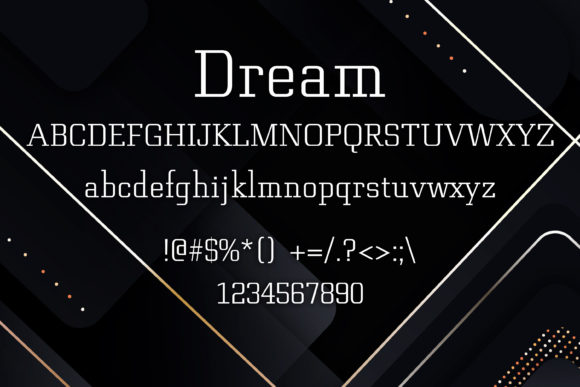
Dream Font: Elevate Your Designs with a Bold and Authentic Display Font
Are you tired of using the same old fonts in your designs? Do you want to add a touch of uniqueness and sophistication to your projects? Look no further than the Dream Font, a bold and authentic display font that’s sure to make your designs stand out. In this article, we’ll explore the features and benefits of the Dream Font, and how you can use it to take your designs to the next level.
What is Dream Font?
Dream Font is a carefully crafted display font that’s designed to make a statement. With its bold and authentic style, this font is perfect for adding a touch of elegance and sophistication to your designs. Whether you’re working on a logo, brochure, or website, the Dream Font is sure to grab attention and leave a lasting impression.
Key Features of Dream Font
- Bold and Authentic Style: The Dream Font features a bold and authentic style that’s perfect for making a statement.
- Neatly Shaped: The font’s neatly shaped letters and curves make it easy to read and visually appealing.
- Contemporary Look: The Dream Font has a contemporary look that’s perfect for modern designs and projects.
- Highly Versatile: This font can be used for a wide range of projects, from logos and brochures to websites and social media graphics.
Benefits of Using Dream Font
So why should you use the Dream Font in your designs? Here are just a few benefits of using this amazing font:
- Adds Visual Interest: The Dream Font adds visual interest to your designs, making them more engaging and attention-grabbing.
- Enhances Brand Identity: With its unique and authentic style, the Dream Font can help enhance your brand identity and make your designs more recognizable.
- Improves Readability: Despite its bold style, the Dream Font is easy to read, making it perfect for use in body text and headings.
How to Use Dream Font in Your Designs
Using the Dream Font in your designs is easy. Here are a few tips to get you started:
- Pair it with Other Fonts: Pair the Dream Font with other fonts to create a unique and visually appealing combination.
- Use it for Headings: Use the Dream Font for headings and titles to add visual interest and emphasis.
Who Can Benefit from Using Dream Font?
The Dream Font is perfect for a wide range of designers and crafters, including:
- Graphic Designers: Graphic designers can use the Dream Font to add a touch of sophistication and elegance to their designs.
- Logotype Designers: Logotype designers can use the Dream Font to create unique and memorable logos.
- Crafters: Crafters can use the Dream Font to add a personal touch to their handmade projects and crafts.
- Web Designers: Web designers can use the Dream Font to add visual interest and emphasis to their website designs.
In conclusion, the Dream Font is a bold and authentic display font that’s perfect for adding a touch of elegance and sophistication to your designs. With its neatly shaped letters and curves, contemporary look, and highly versatile style, this font is sure to make your designs stand out. Whether you’re a graphic designer, logotype designer, crafter, or web designer, the Dream Font is a must-have font that can help take your designs to the next level.